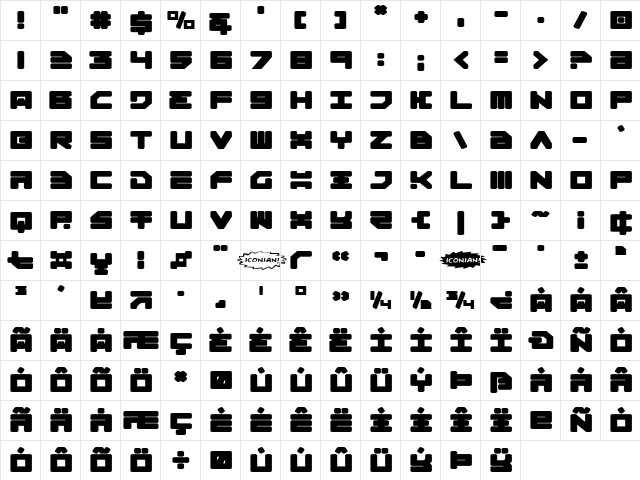
Omega-3 Expanded Expanded
Design Context for Omega-3 Expanded Typeface
Omega-3 Expanded is a composed and adaptable typeface that performs quietly and consistently across a wide range of design contexts.